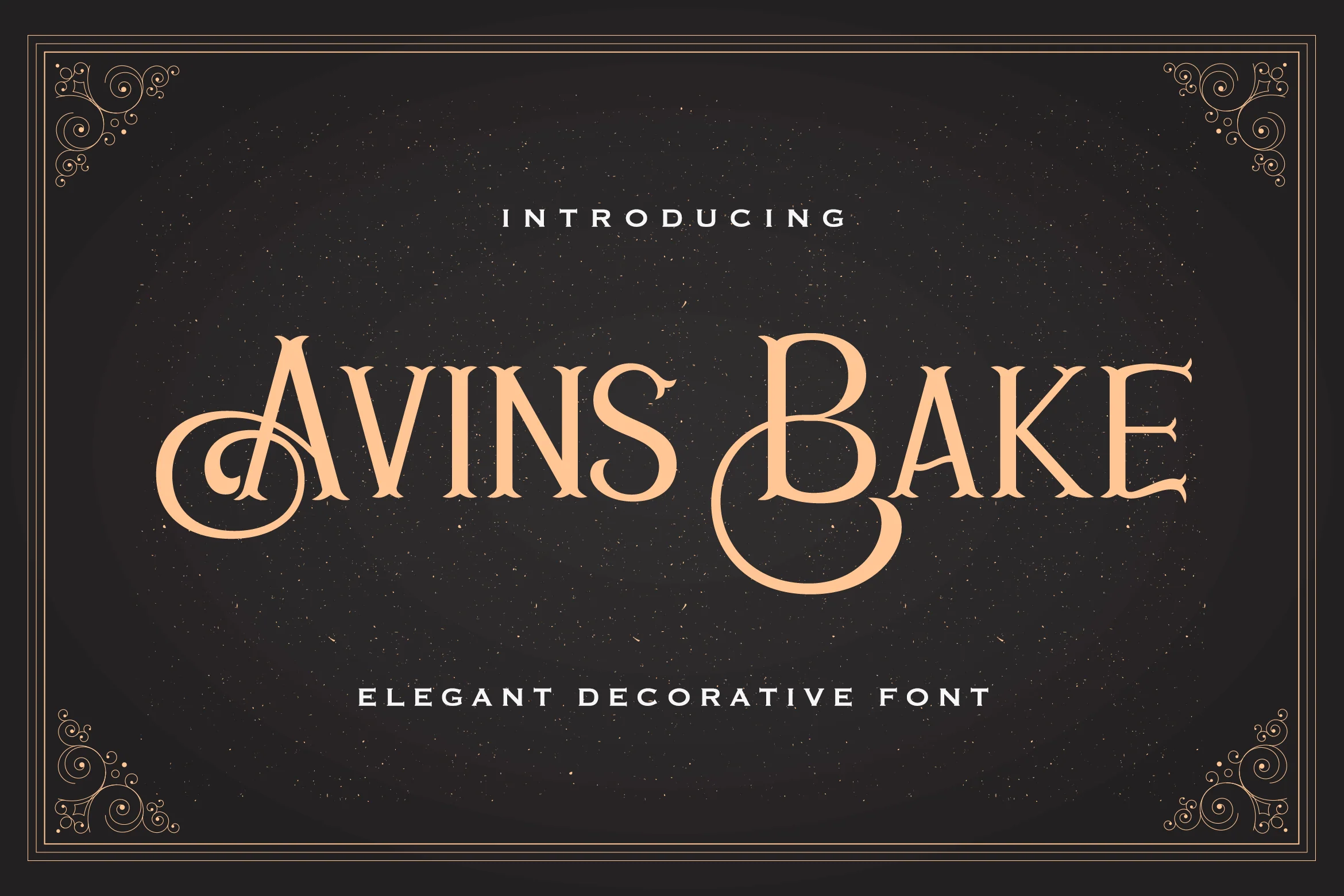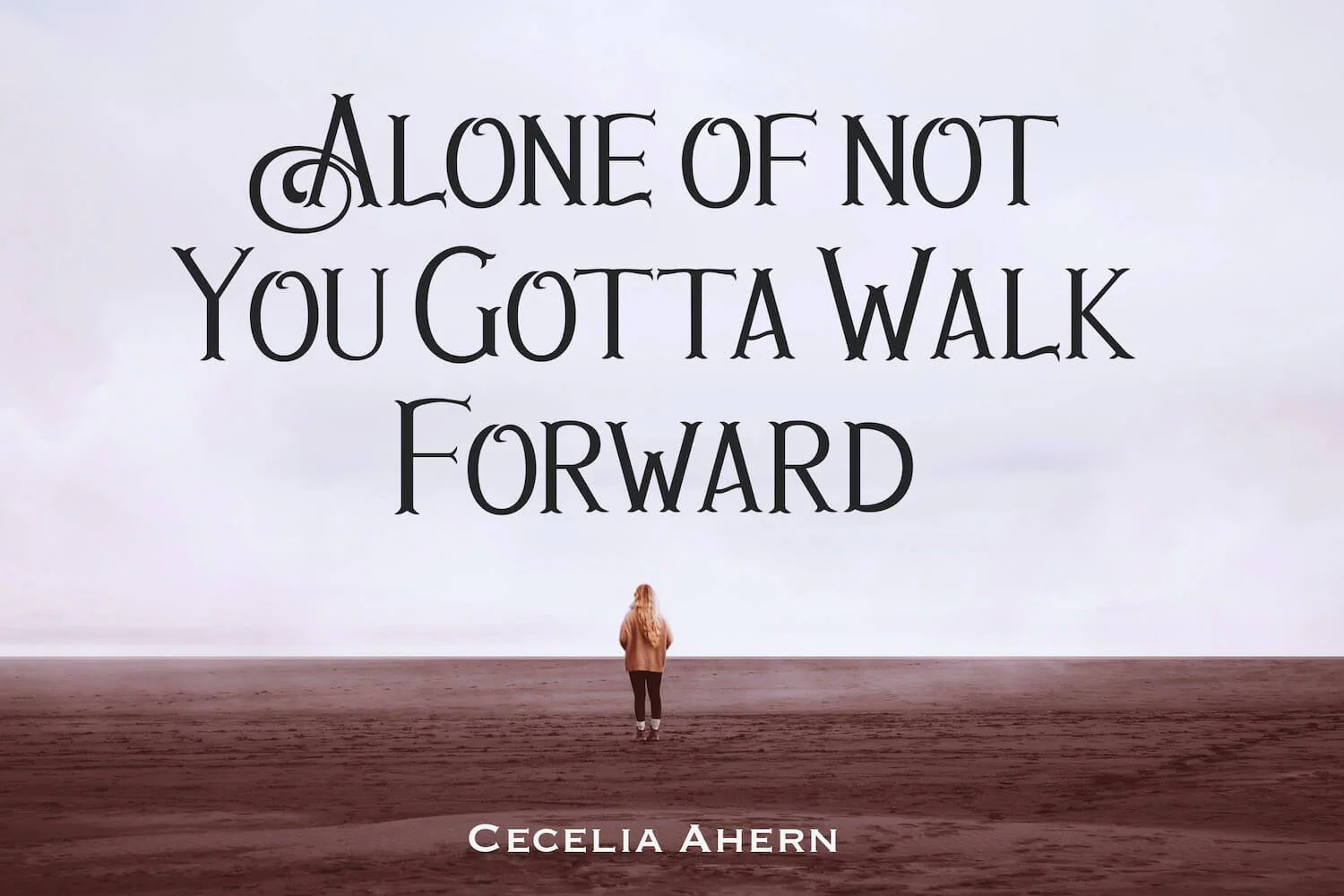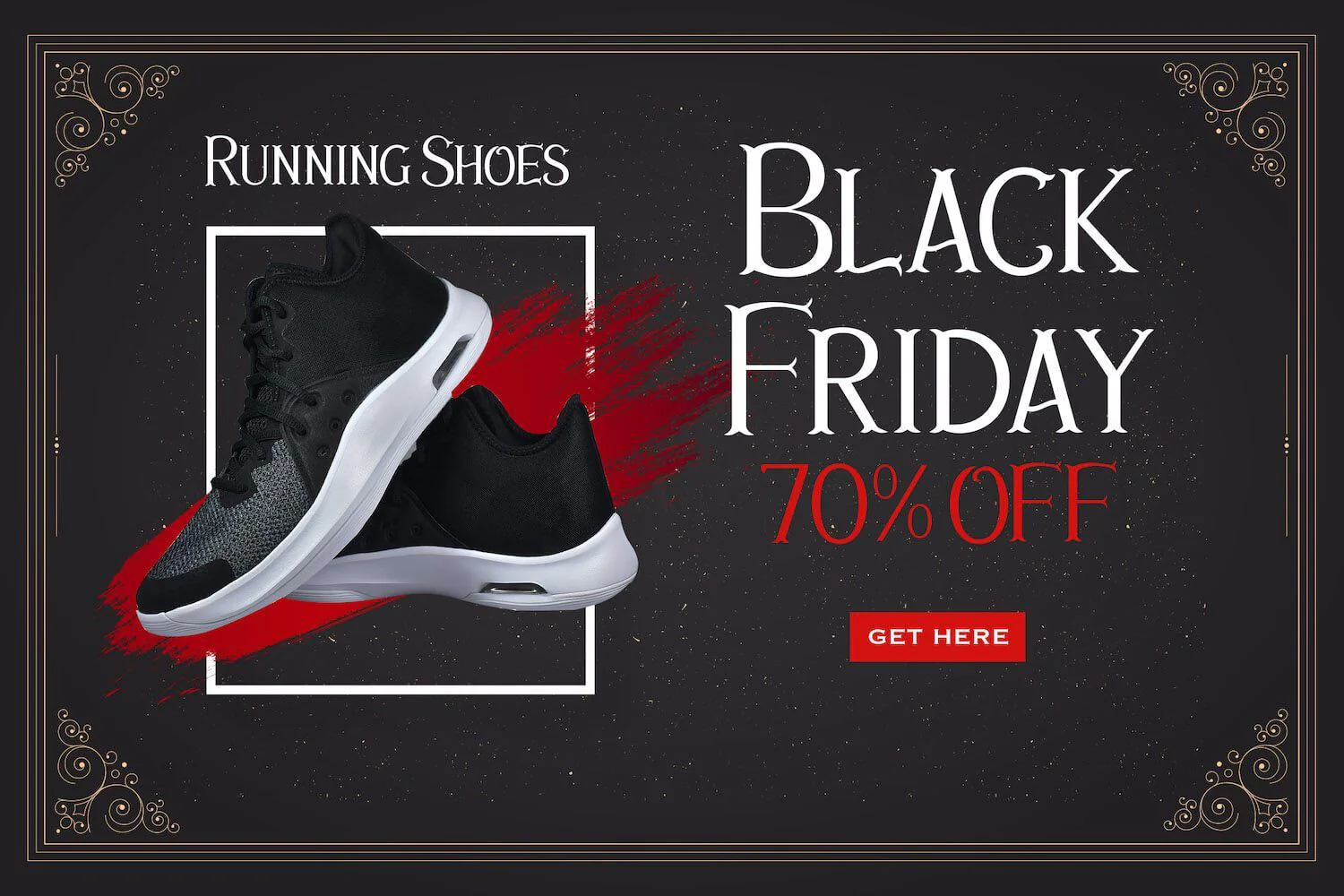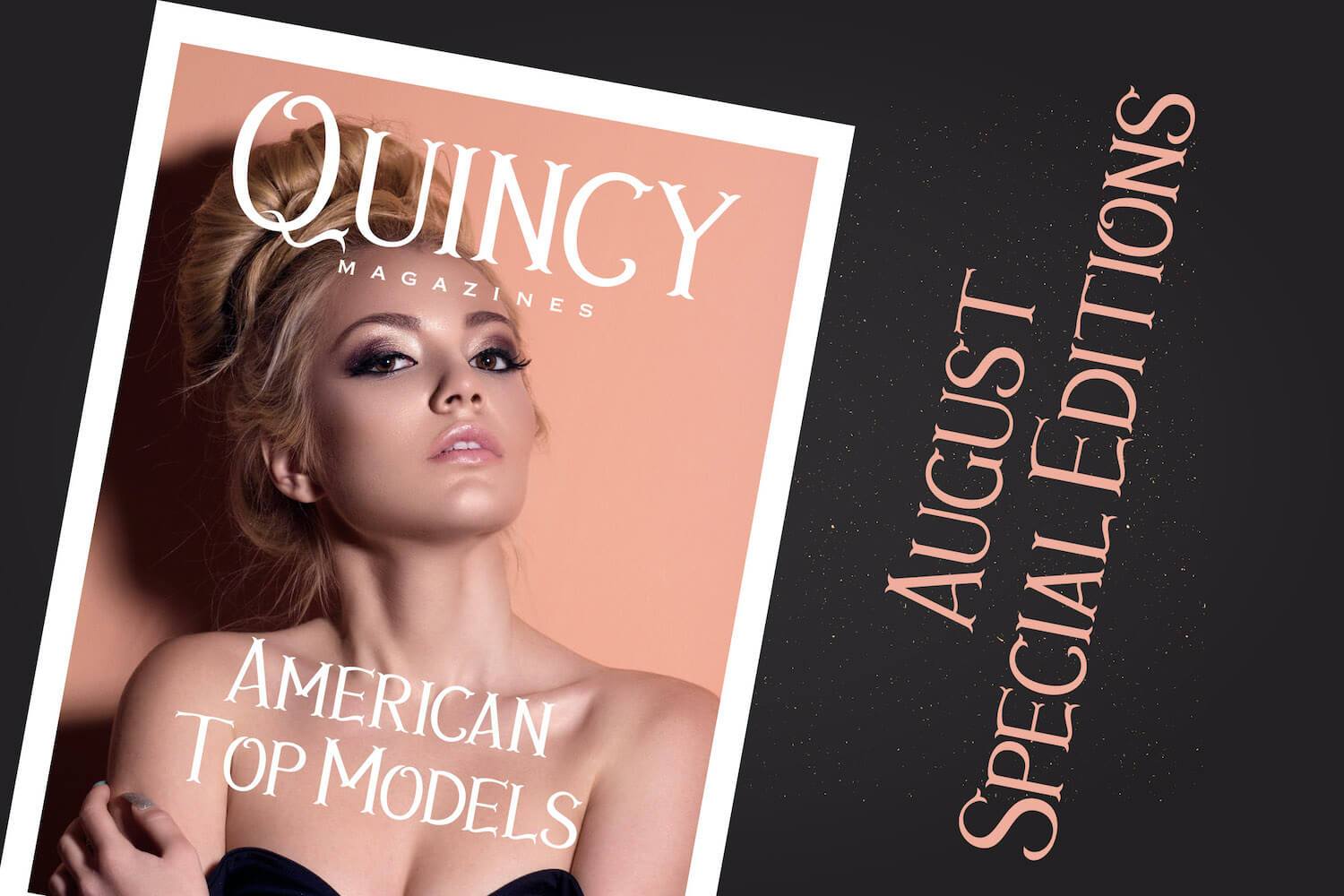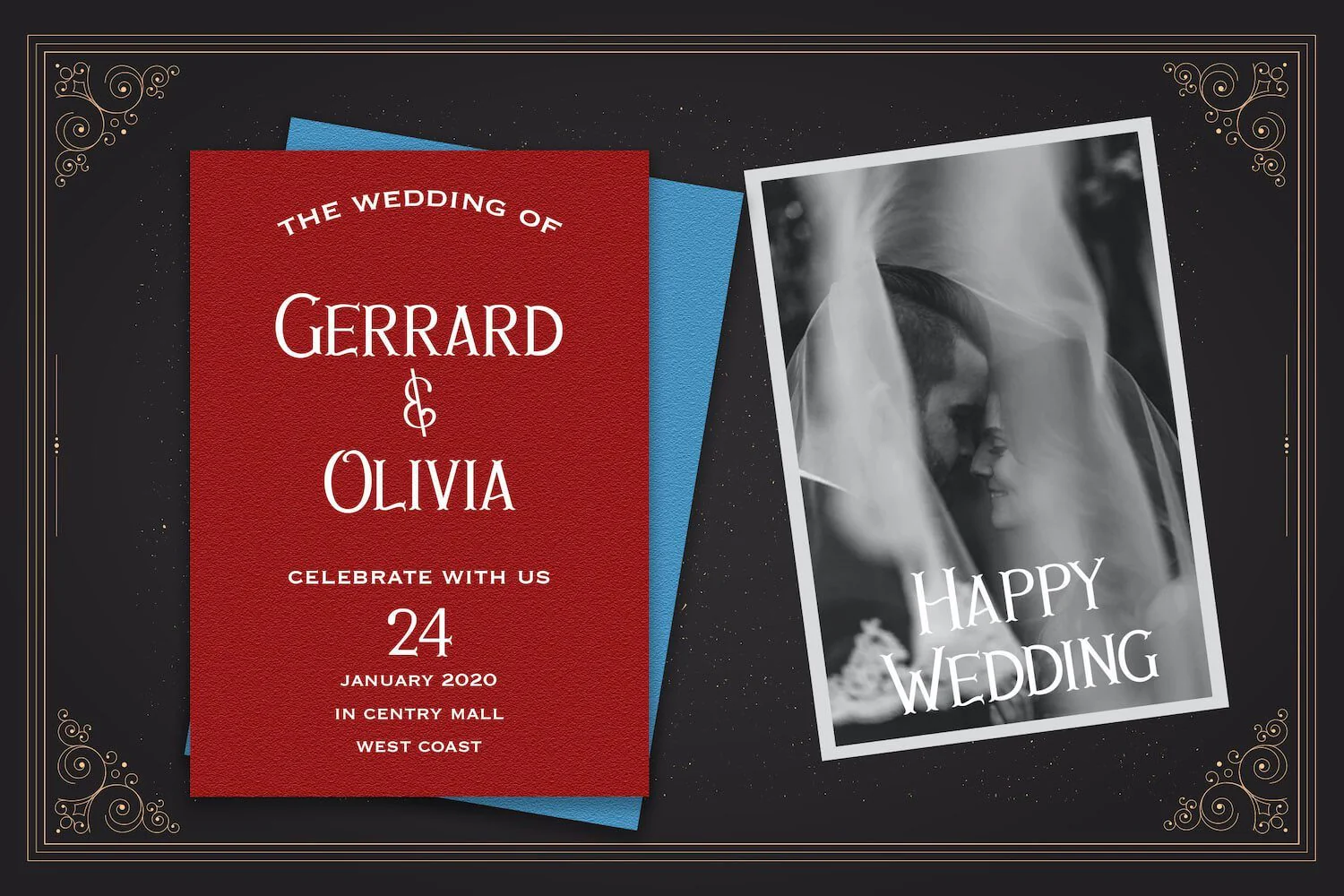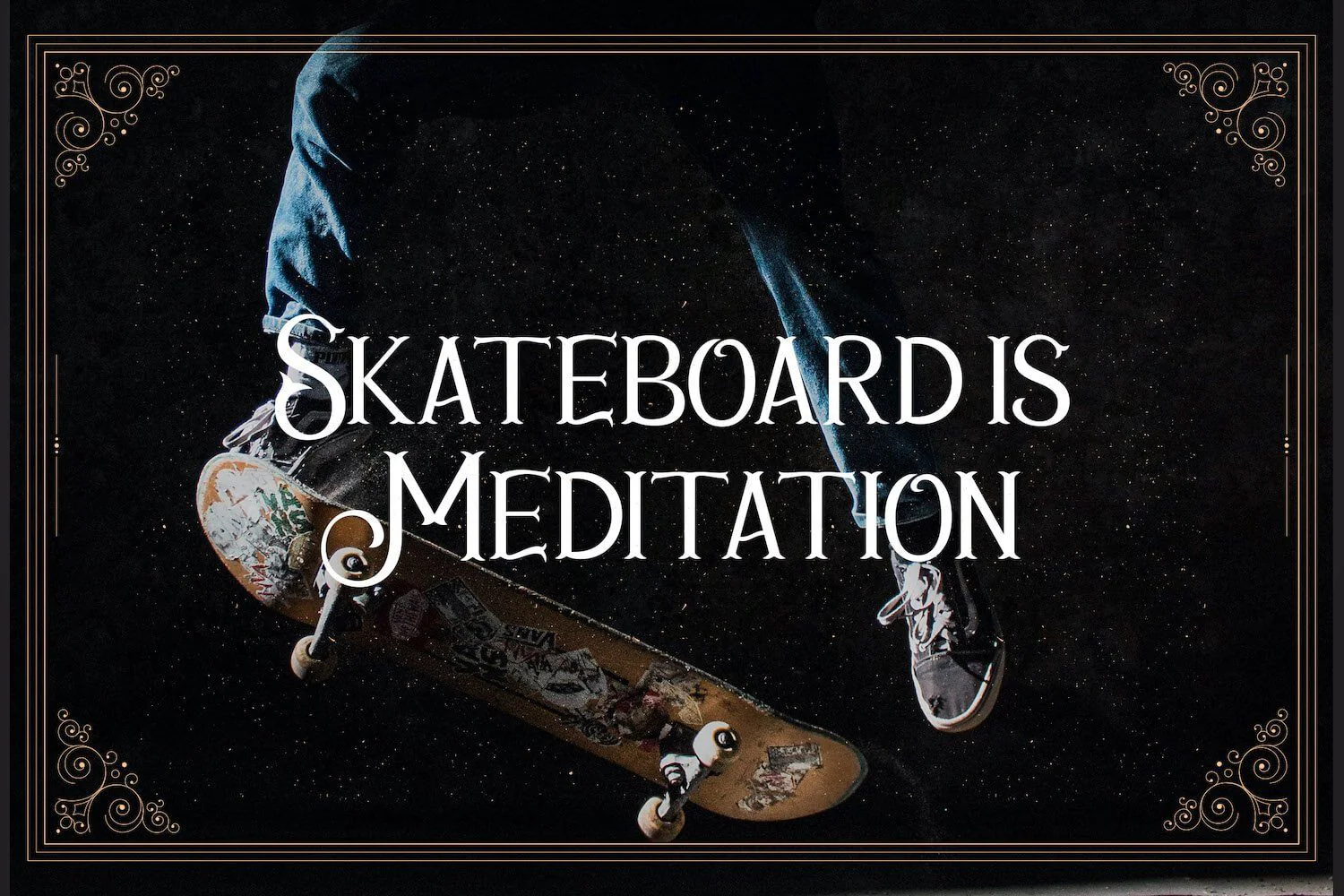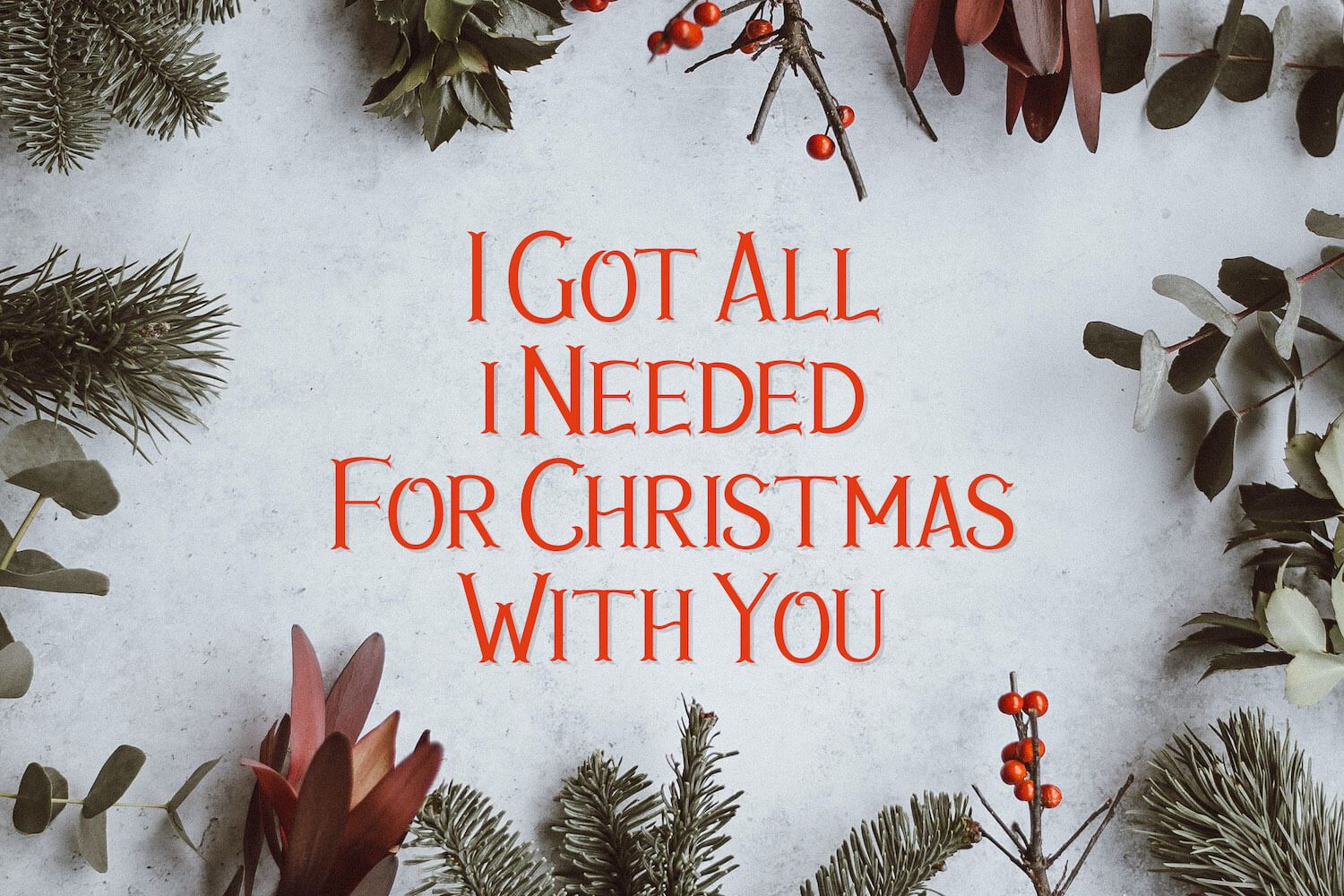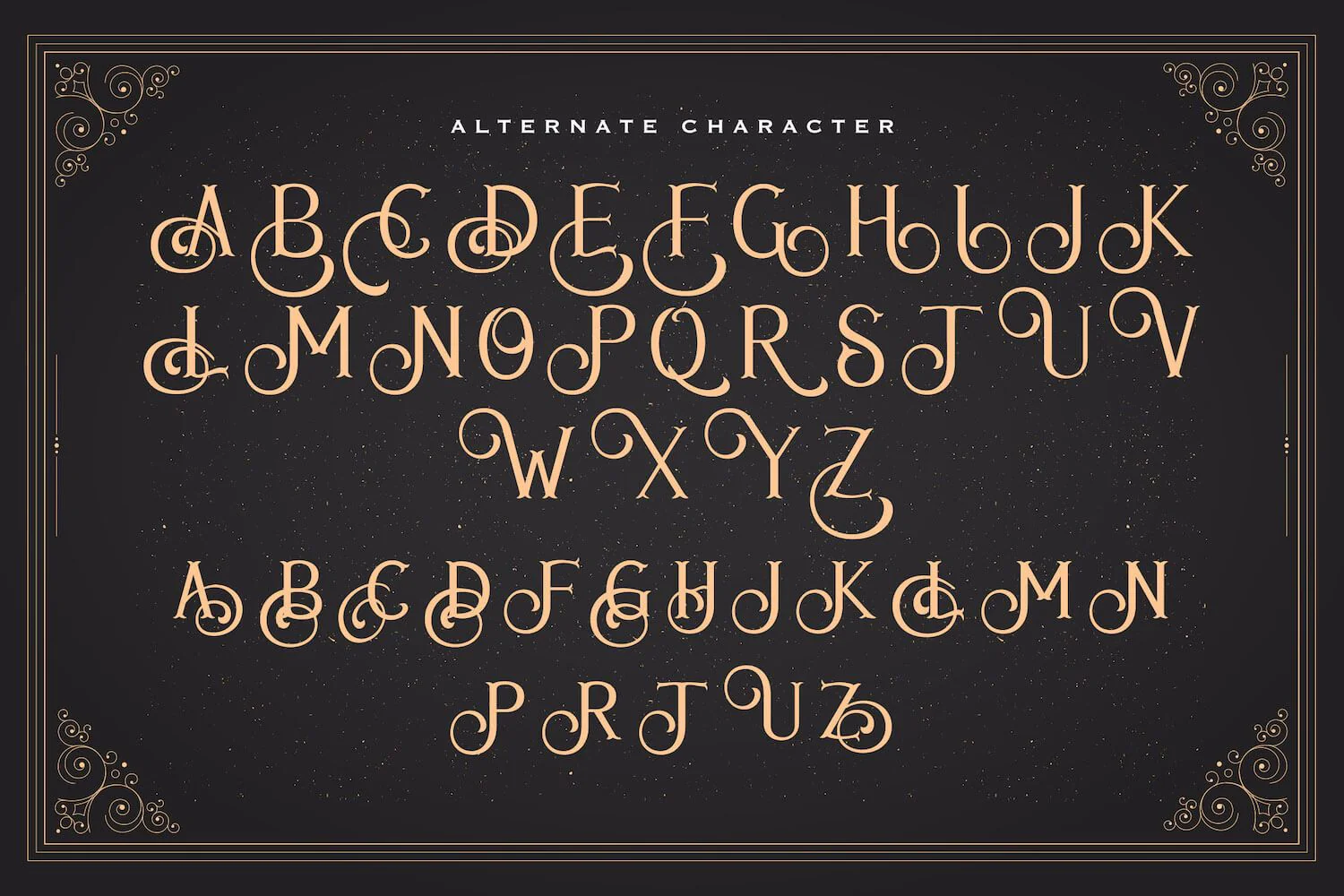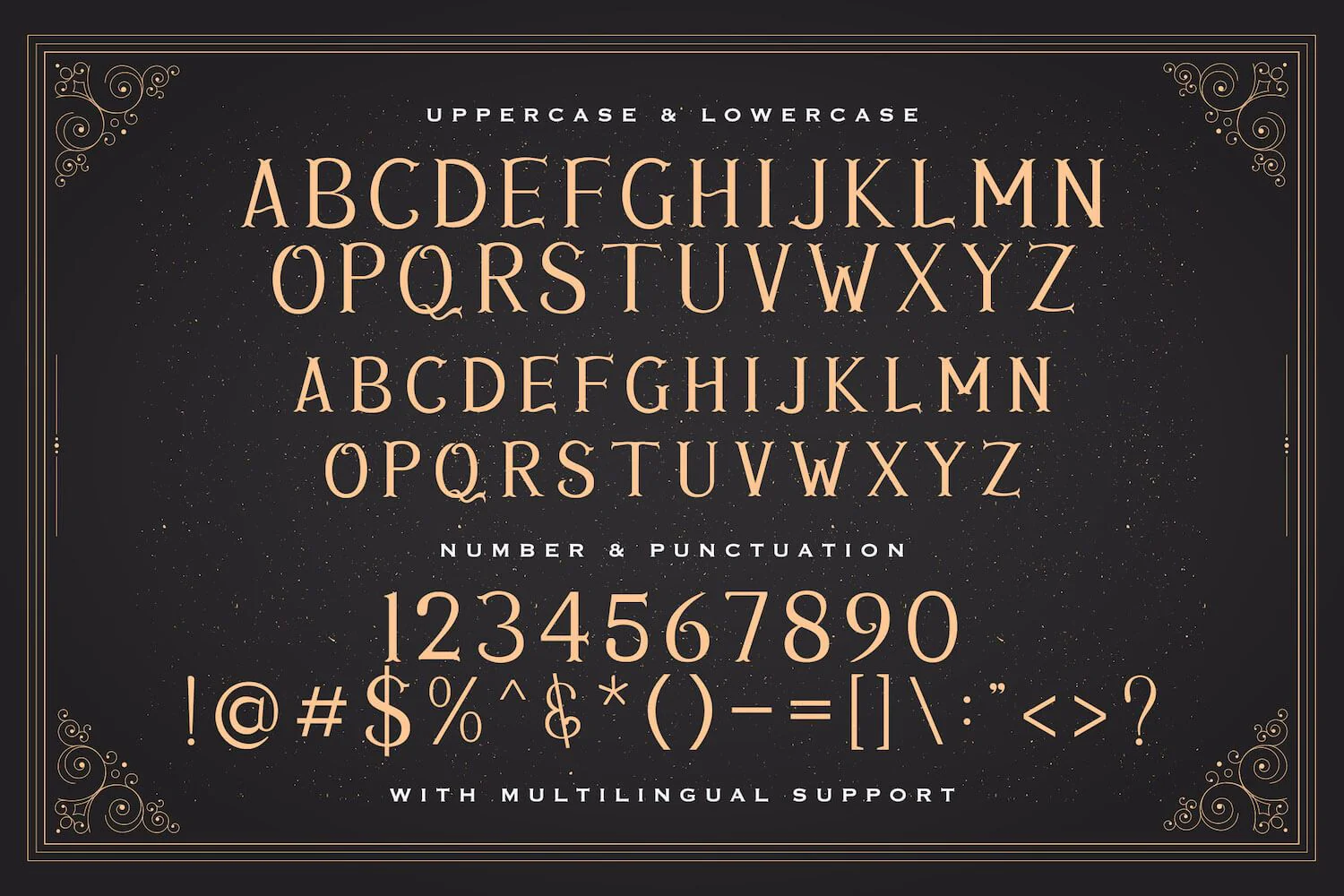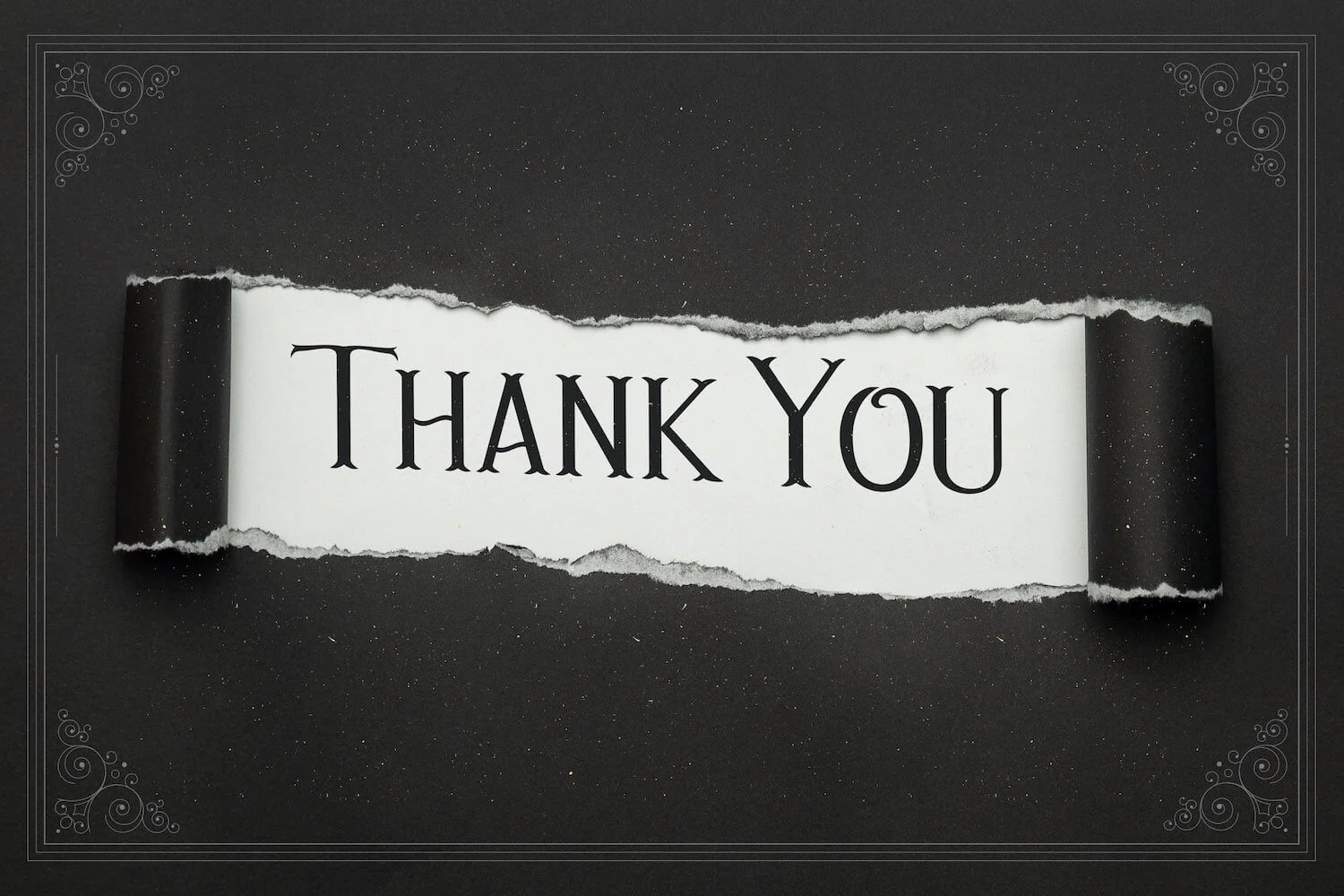
Avins Bake - Decorative Serif Font
Introducing Avins Bake - Decorative Serif Font
Avins Bake is a unique, decorative and modern serif font. This playful typeface will look truly outstanding in a wide range of contexts.
Introducing Avins Bake - Decorative Serif Font
Avins Bake is a unique, decorative and modern serif font. This playful typeface will look truly outstanding in a wide range of contexts.